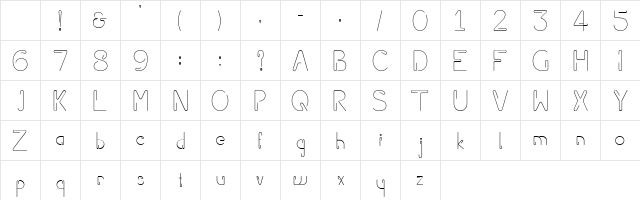
Complete Paper Clip Regular glyph index. Displaying only characters natively supported by Paper Clip Regular font.
Paper Clip is a composed and adaptable typeface that performs quietly and consistently across a wide range of design contexts.